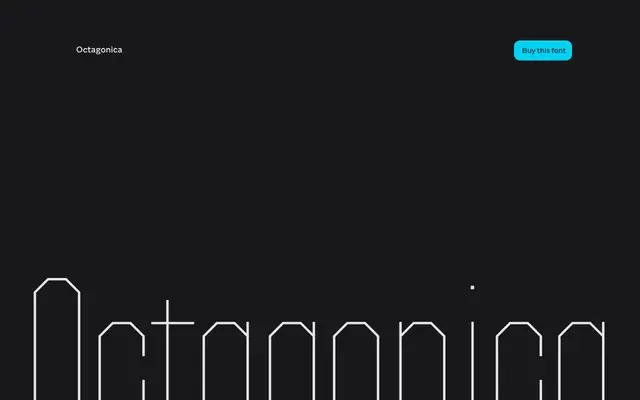
Octagonica
Capitalics · Mateusz Machalski
A grid-constructed geometric sans drawn from 20th-century sports poster lettering, spanning 60 styles across three widths with variable font support.
Built on rhythmic modular grids evoking jersey numbers and stadium signage, the family runs from Hairline to Black across standard, condensed and expanded widths, each with italics. Variable font axes for weight, width and slant give designers continuous control across the full range. Best suited to corporate identity, event branding and large-scale print where structural rigour and expressive weight contrast are both required.
Constructed on a rigorous modular grid with geometric letterforms drawn from sports poster aesthetics, placing it firmly in the geometric sans-serif tradition with a display orientation.